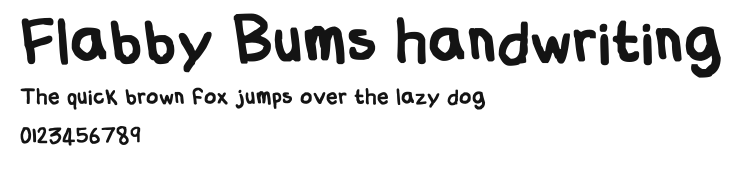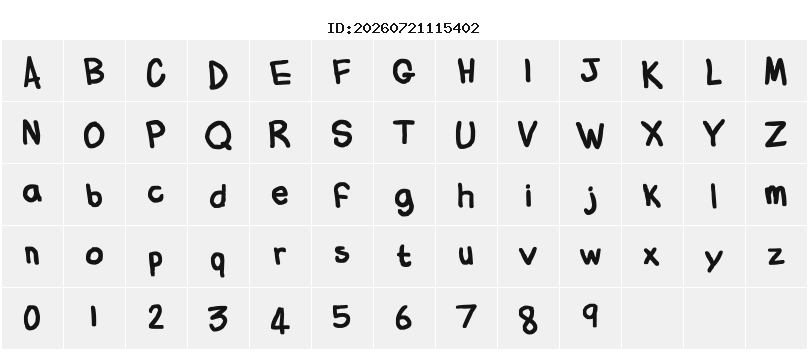
Flabby Bums handwriting Preview
About Flabby Bums handwriting.ttf
Flabby Bums handwriting.ttf is a modern, elegant sans-serif font designed for ultimate readability and visual harmony. Perfect for branding, headlines, web design, and print materials.